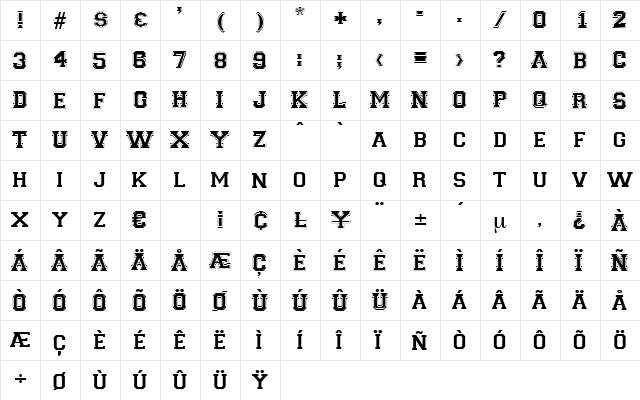
Hillman Regular
Design Context for Hillman Typeface
Hillman takes a measured approach to typography — its balanced proportions and neutral character make it a reliable workhorse for both digital and print work.